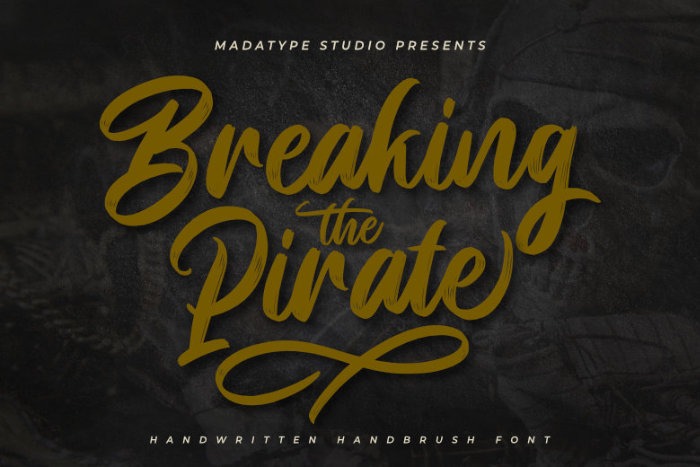
Breaking Pirate Brush Font
This is a fashionable and super-chilled new font with handwritten font script with some sexy stylish. It’s designed and shared by Madatype Studio. This is script font that emanates sophistication and elegance. Its stylish alternates and ligatures make this font the perfect match for any project.